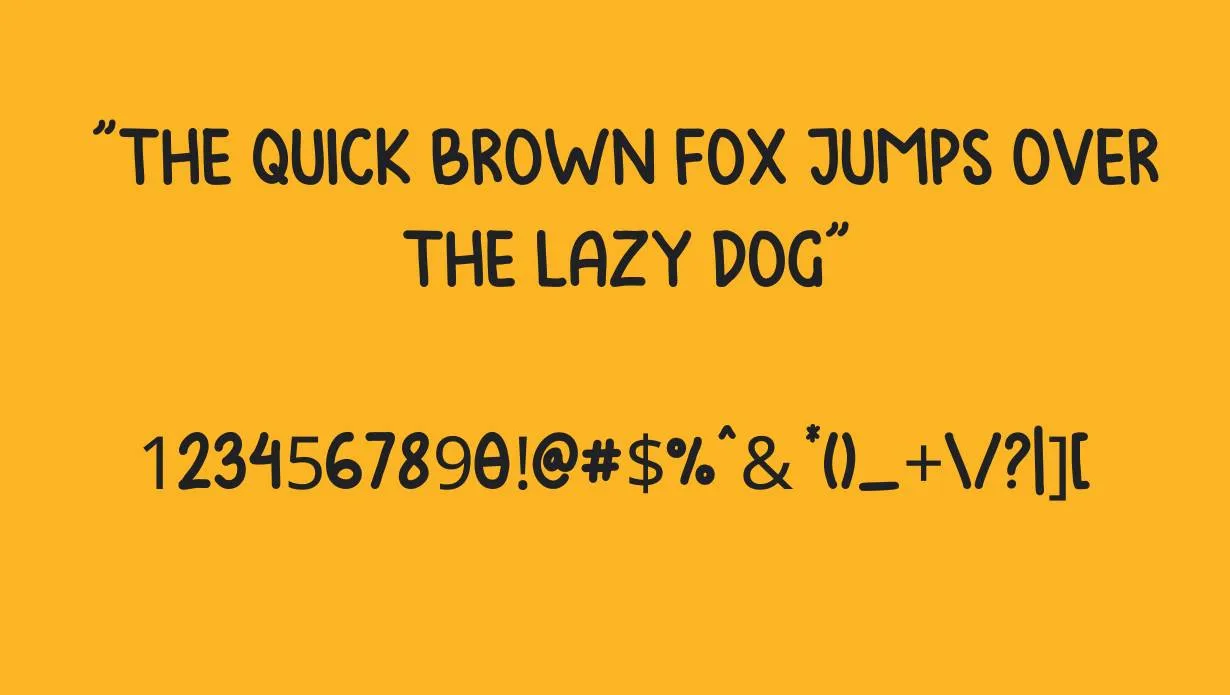
Let’s talk about a very amazing handwritten typeface Avocados Font. This beautiful font was designed by a very famous font designer Muammar Khalid. It has only one Regular style. This font contains 188 characters, 158 glyphs, and 1000 units per Em. Unicode supports 2.0 and BMP only. The font’s weight is Semi-Bold and its width is medium(normal).
| Name | Avocados Font |
| Designer | Muammar Khalid |